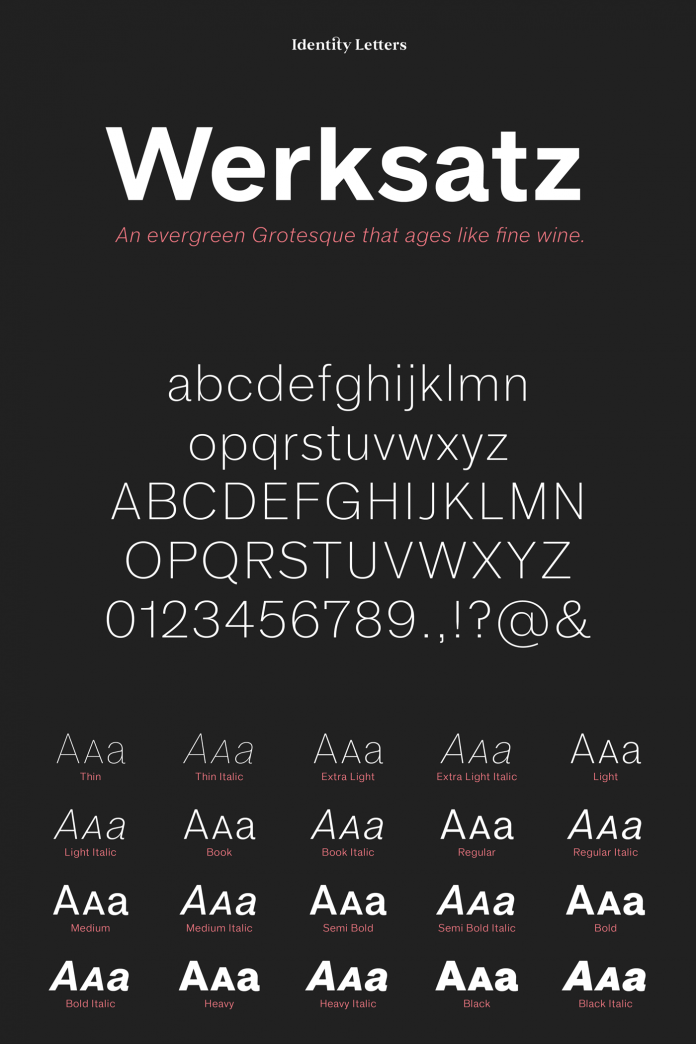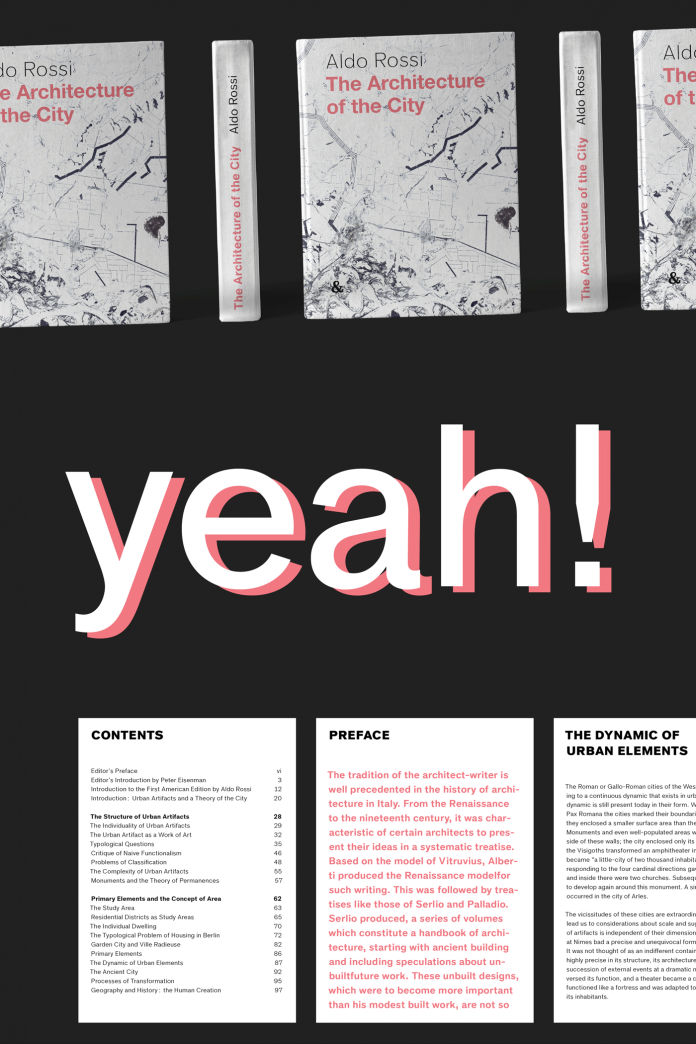
Werksatz, a contemporary interpretation of early grotesque typefaces.
Designed by Moritz Kleinsorge of German foundry Identity Letters, Werksatz is a new sans-serif font family that draws inspiration from early grotesque typefaces such as Akzidenz Grotesk or Venus. It consists of 20 cuts including 10 weights plus matching italics. The Werksatz font family masterfully combines the best from the invincible classics with the current zeitgeist and the requirements for today’s typography.
Equipped with an extended Latin-based character set, the font family supports hundreds of languages. In addition, Werksatz comes with special glyphs like three variations of arrows and additional shapes, which makes this typeface a real workhorse for plenty of tasks. The great range of OpenType features includes Capital Spacing, Case-Sensitive Forms, Ligatures, Small Caps, Subscript, Inferior figures and letters, plenty of figure sets, just to name a few.
The Werksatz font family is less formalistic and rigid than most average neogrotesk typefaces we know. Hence, you can use it for a wide range of projects such as branding, editorial design, publications, web design, wayfinding systems, apps, packaging, etc.